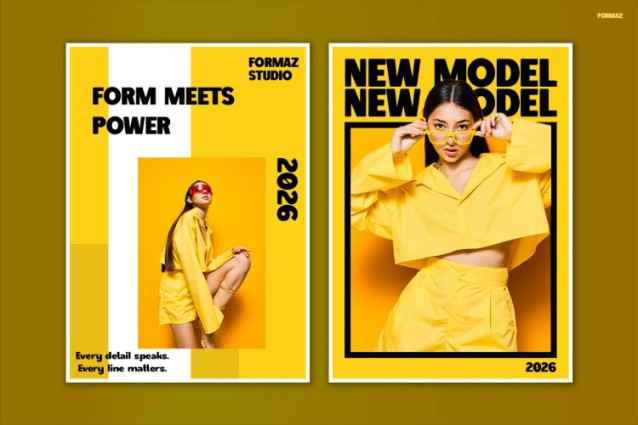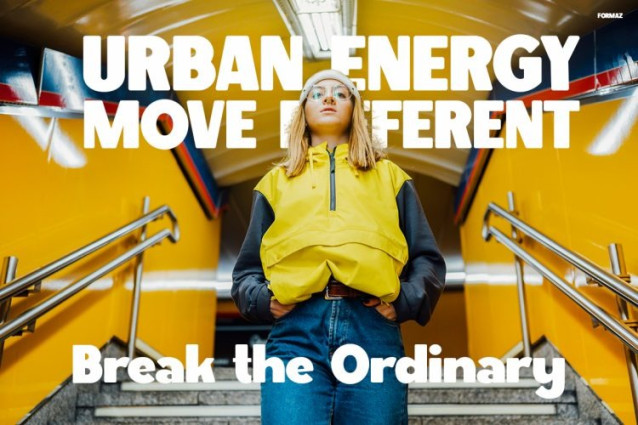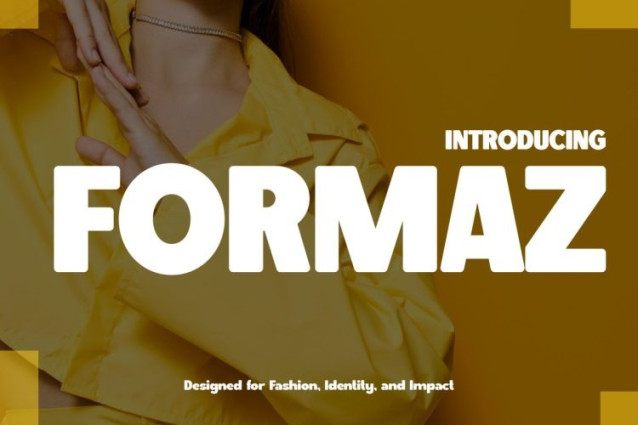
Formaz Font is a powerful, clean-cut typeface designed to deliver bold impact with a sleek urban edge. Moreover, its strong geometric shapes and confident letterforms create a high-fashion, editorial feel that instantly stands out. In addition, the balanced structure between sharp lines and modern spacing makes it highly versatile and visually striking. Not only does it command attention, but it also keeps readability sharp across different layouts. As a result, FORMAZ becomes the perfect choice for designs that demand confidence, clarity, and contemporary style.
Modern Font FORMAZ brings a bold, fashion-forward aesthetic that fits perfectly with modern branding and urban visuals. For instance, it shines in posters, lookbooks, product packaging, and social media campaigns. Furthermore, its strong presence adds a premium and professional tone to any design. Because of this, it works seamlessly for both minimal layouts and high-impact compositions. In short, FORMAZ transforms simple typography into a statement of style, power, and modern identity.
Perfect For
This font is ideal for designers, fashion brands, and creative agencies looking to build a strong visual identity. In particular, it suits streetwear labels, editorial projects, luxury branding, and advertising campaigns. Additionally, content creators and entrepreneurs who want bold, standout visuals will benefit from its clean yet expressive style. Therefore, whether you’re creating a brand system or eye-catching content, FORMAZ helps you stand out with confidence.